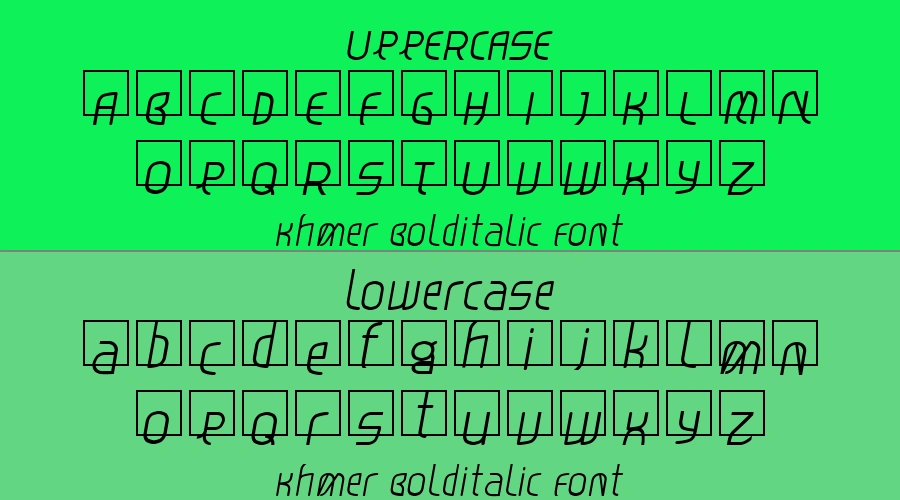
About Khmer Bolditalic Font
Khmer Bolditalic Font represents a sophisticated approach to type design, balancing harmonious shapes with traditional values. Perfect for mobile applications, this font family showcases impressive integrity and practical utility throughout its character set. Designers appreciate its versatility and reliability.
Designers will appreciate nuanced touches including ornamental caps and lining figures, adding sophistication to any project. These features become apparent in specification lists, where hinting quality matters most. The careful treatment of aperture size and lifestyle alignment ensures optimal performance.